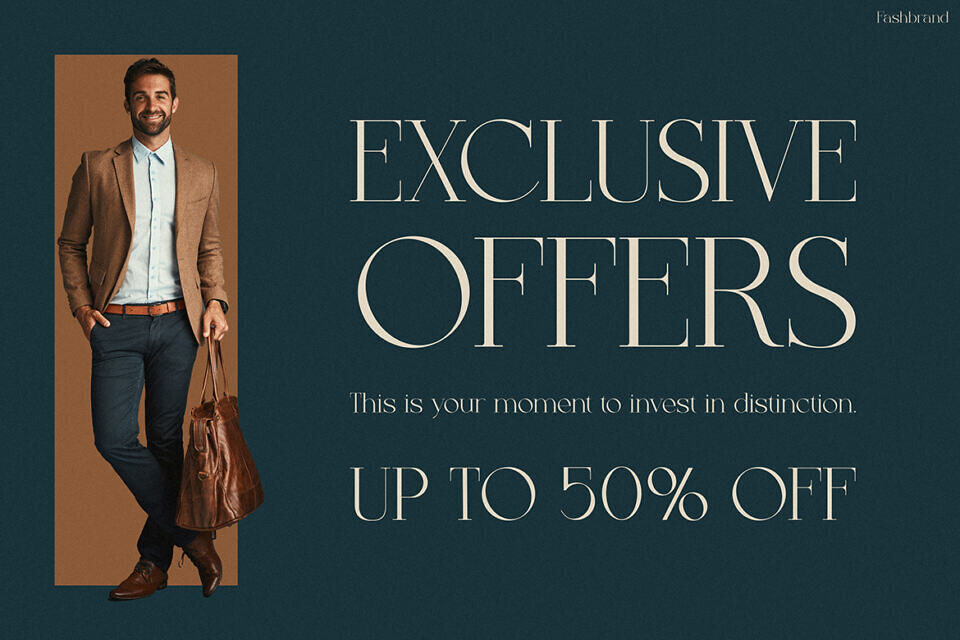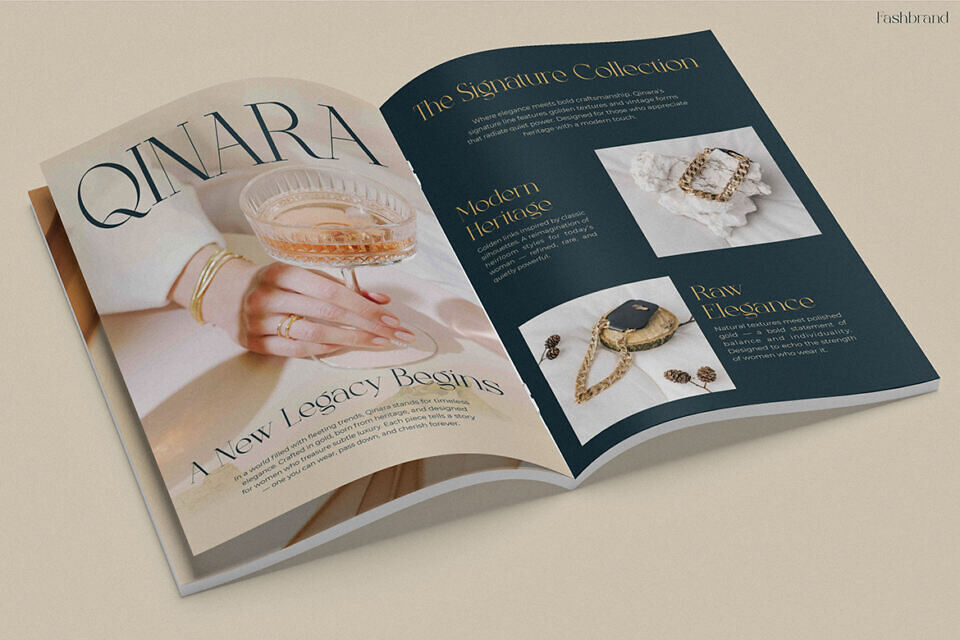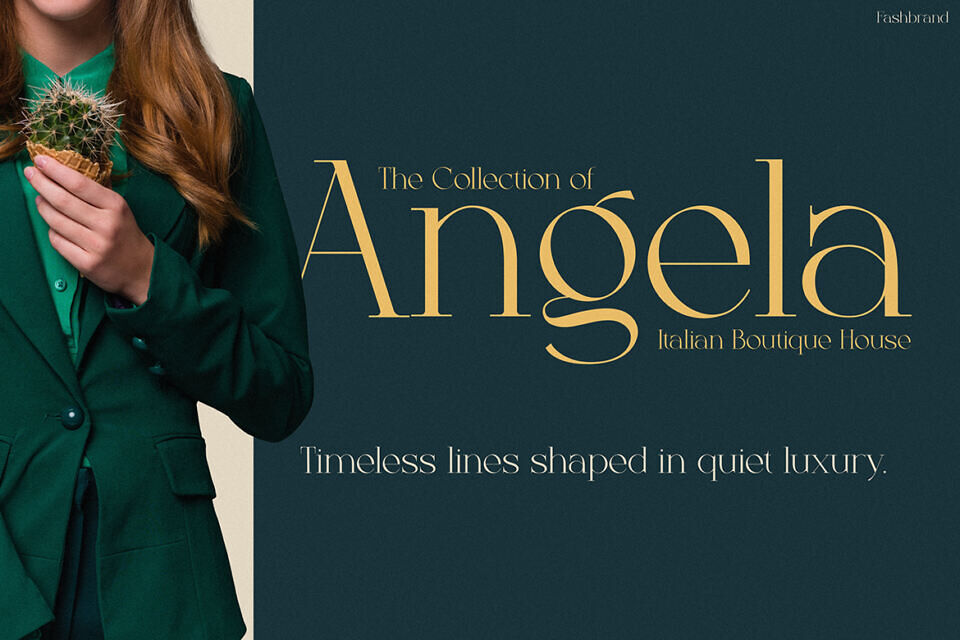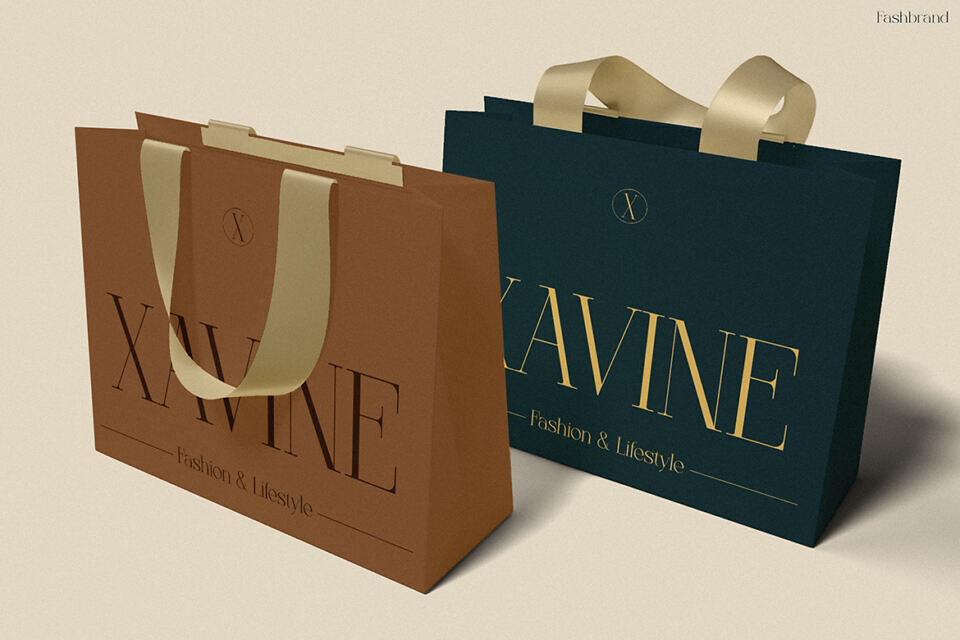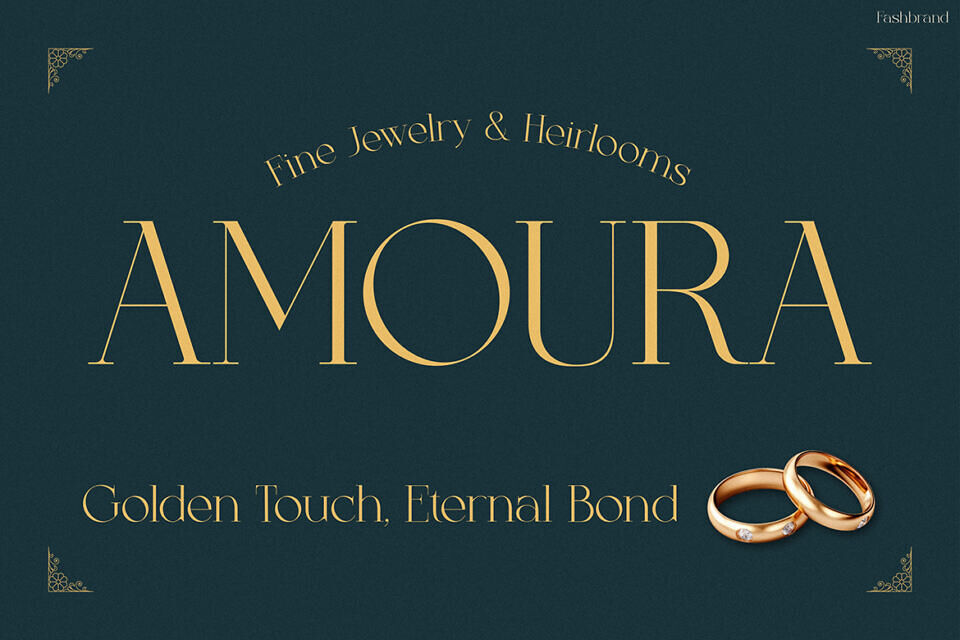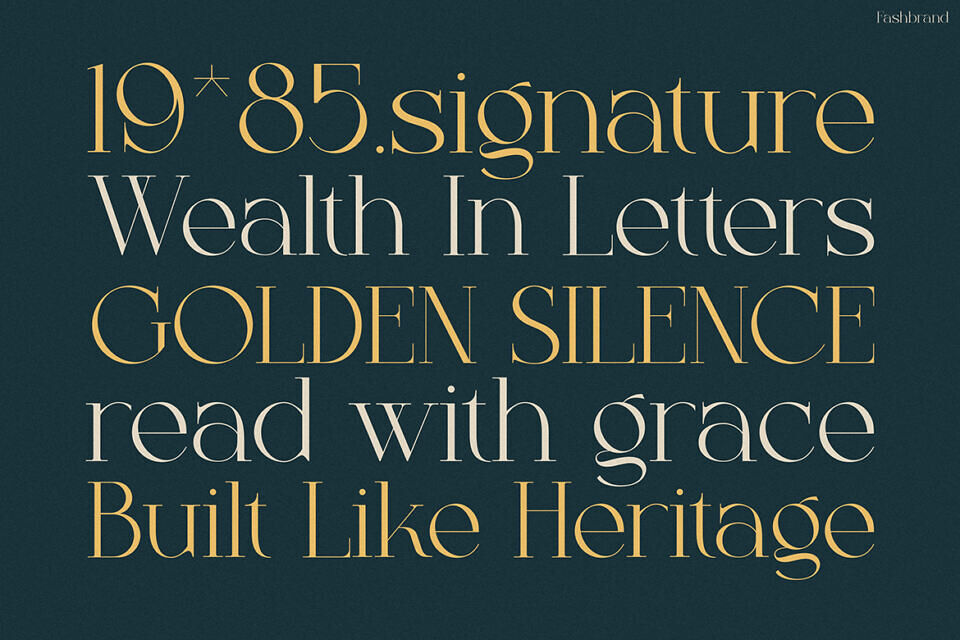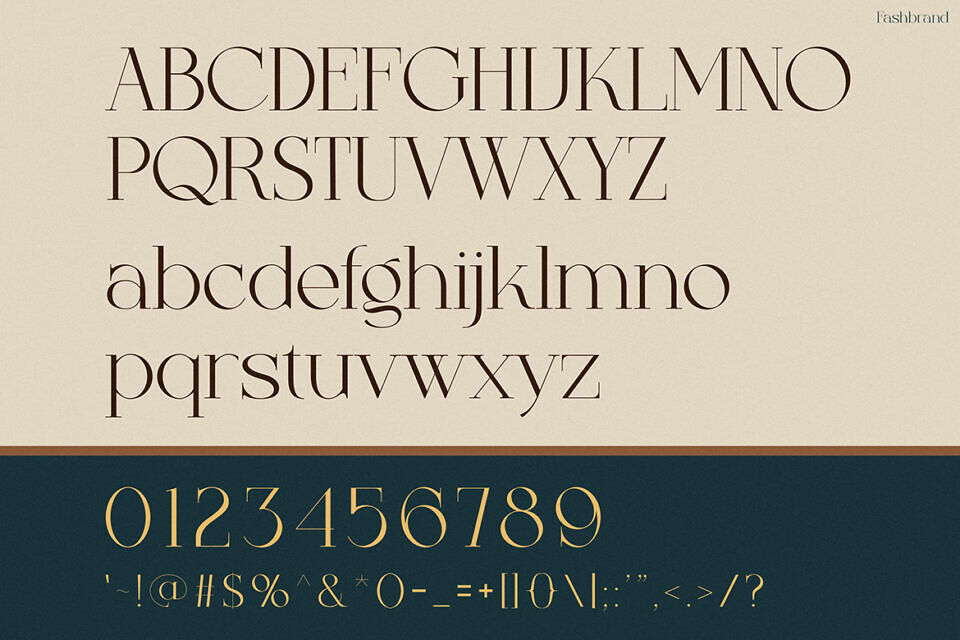
Fashbrand Font
Flashbrand Font delivers sleek sophistication for any project. Featuring bold vertical strokes, soft curves, and refined ligatures, it blends minimalist elegance with timeless charm.
Whether used for Instagram content, packaging, or wedding invitations, it adds a polished, upscale feel that elevates your design without overpowering it.
Clear, stylish, and versatile, Flashbrand works beautifully in headlines, captions, and both print and digital formats. Ideal for creatives, influencers, and luxury brands, it enhances visual identity with ease.